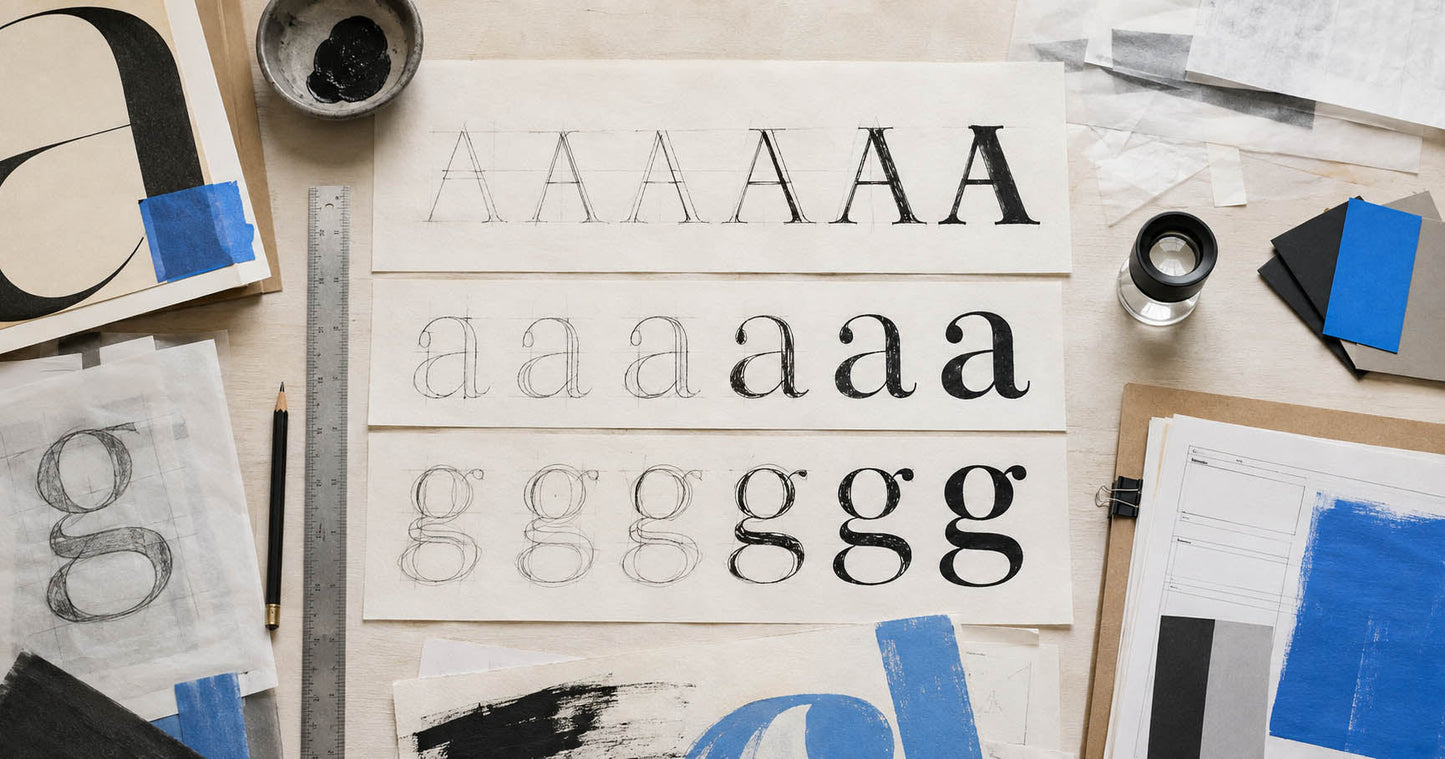
A handmade font should not look as though a computer has apologised for it. My handmade custom font design process often begins with paint, ink, print, cut paper or deliberately imperfect marks. Then the editing starts. The aim is not to preserve every accident like a museum exhibit. It is to keep the energy while building a font that designers can actually install, type with and trust. The mess is the beginning. The system is the finished work.
Why begin by hand?
Digital drawing is clean, fast and endlessly correctable. Those are strengths. They can also tempt every shape towards the same polite finish.
Physical materials resist. A brush changes with pressure. Ink bleeds. Paper has tooth. Printed forms gain dents, gaps and uneven edges. These qualities introduce decisions that are difficult to invent convincingly with a tidy vector path.
Perfection is available everywhere. Character needs a little more trouble.
Choose the right tool for the voice
The material is not a gimmick. It changes the language of the letters.
- Brush and ink can create speed, contrast and expressive terminals.
- Dry brush introduces texture and broken edges.
- Paint can feel bold, direct and physical.
- Cut paper produces blunt shapes and surprising joins.
- Print and letterpress textures bring pressure, wear and repetition.
- Hand lettering creates rhythm that begins with movement rather than geometry.
The brand comes first. There is no point using a brush because brushes look artistic if the result needs to feel engineered and exact.
Make enough mistakes to find the right one
I produce multiple versions of important characters. Not because indecision is charming, but because repetition reveals what belongs to the design.
One A may have the right stance. Another has the better crossbar. A third contains a small accident that gives the whole alphabet its direction.
The best mark is rarely the one made most carefully. Annoying, but useful.
Turn physical marks into digital shapes
Selected characters are captured, cleaned and developed digitally. This is not a tracing exercise.
The forms need consistent proportions, alignment and weight. Counters must remain open. Similar letters need a family resemblance. Texture has to survive at useful sizes without turning into visual porridge.
The character of the source stays. The parts that prevent it working do not.
Build an alphabet, not a collection
A convincing A and a magnificent R are only the beginning. The rest of the font needs the same logic.
I develop recurring decisions around:
- Stroke endings and corners
- Width and proportion
- Texture density
- Curves and joins
- Uppercase and lowercase relationships
- Alternates and repeated letters
Consistency does not require identical forms. Handmade type often benefits from alternates that stop repeated letters looking stamped by a suspiciously well-behaved robot.
Make it work
The font is spaced, kerned and tested in real brand language. Numerals, punctuation and symbols are developed with the same care as the headline letters.
Desktop and webfont versions can then be prepared for the people who will use them. Nobody should need to know how much paint reached the table. They should be able to choose the font and start working.
Craft without the craft theatre
Human in. Useful out.
A handmade brand font should retain evidence of how it was made without becoming difficult to use. That balance is the job.